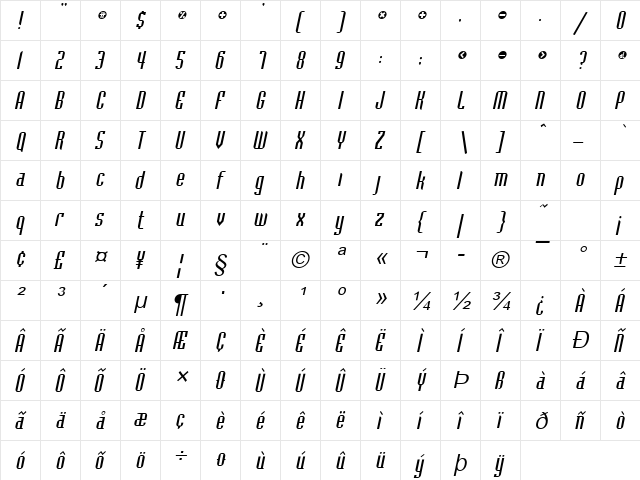
Flintstone Italic Font Preview
Flintstone Italic
Flintstone Italic Font Details
Design Context for Flintstone Typeface
Flintstone is a composed and adaptable typeface that performs quietly and consistently across a wide range of design contexts. Its italic angle brings a sense of urgency and motion to the letterforms.
Pro Tip: Try Flintstone for annotation and caption copy alongside an upright companion — the contrast in angle creates a dynamic but ordered typographic system.